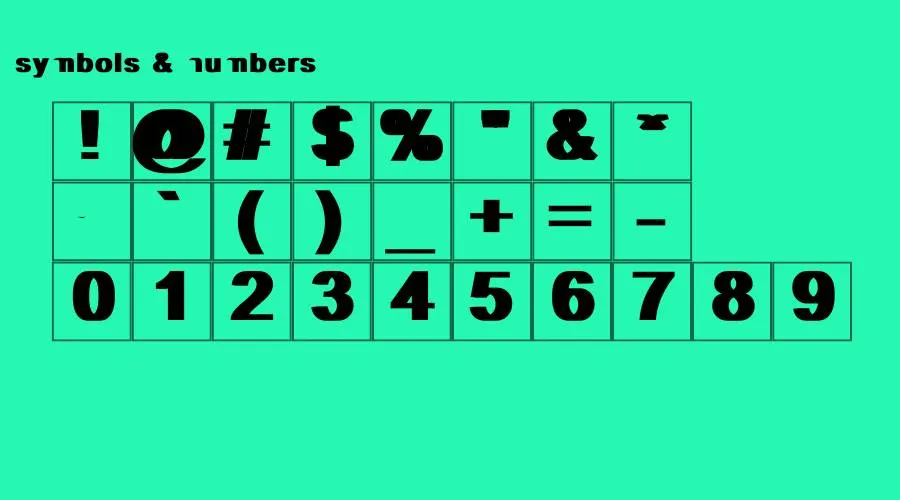
About Arial Black Bold Font
Here are a few tips for choosing a Arial Black Bold Font for your design. A combination of it and other fonts can enhance the attractiveness of your project design.
A font can be used for a variety of projects like business cards, logos, formal documents, and more. This font can be printed as well as used digitally.
Regardless of the type of project design you are designing, you can use this typeface style design. It can be used for a variety of purposes. Large blocks of text do not work as well with this style.
You can use this typeface for any project if you need a clean, stylish font. Unique glyphs with a modern twist make up this design. A person can use this typeface style design to create unique and attractive logos, invitation cards, wedding cards, business cards, banners, posters, art decor, and modern advertising.
It can be used for designing web content and pages. This tool is useful for a variety of official design projects, such as resume pattern designs, thumbnail designs, and theme designs.
Besides Facebook, and Instagram, this typeface is perfect for use in social media apps. This lettering style can also be used in HTML, CSS, etc. You can use this typeface to create wonderful logos for television dramas, movies, and animated series.
Arial Black Bold Font View
Name | Arial Black Bold Font |
Designer | Robin Nicholas, Patricia Saunders |
Some other notable fonts look similar to the Arial Black Bold font.
Pairing it with IRYekan font it’s a marvelous typeface to pair.
Is Arial Black Bold Font a standard Font?
There is no doubt that Arial Black Bold font is a great typeface. Several tasks and plans can be carried out with it.